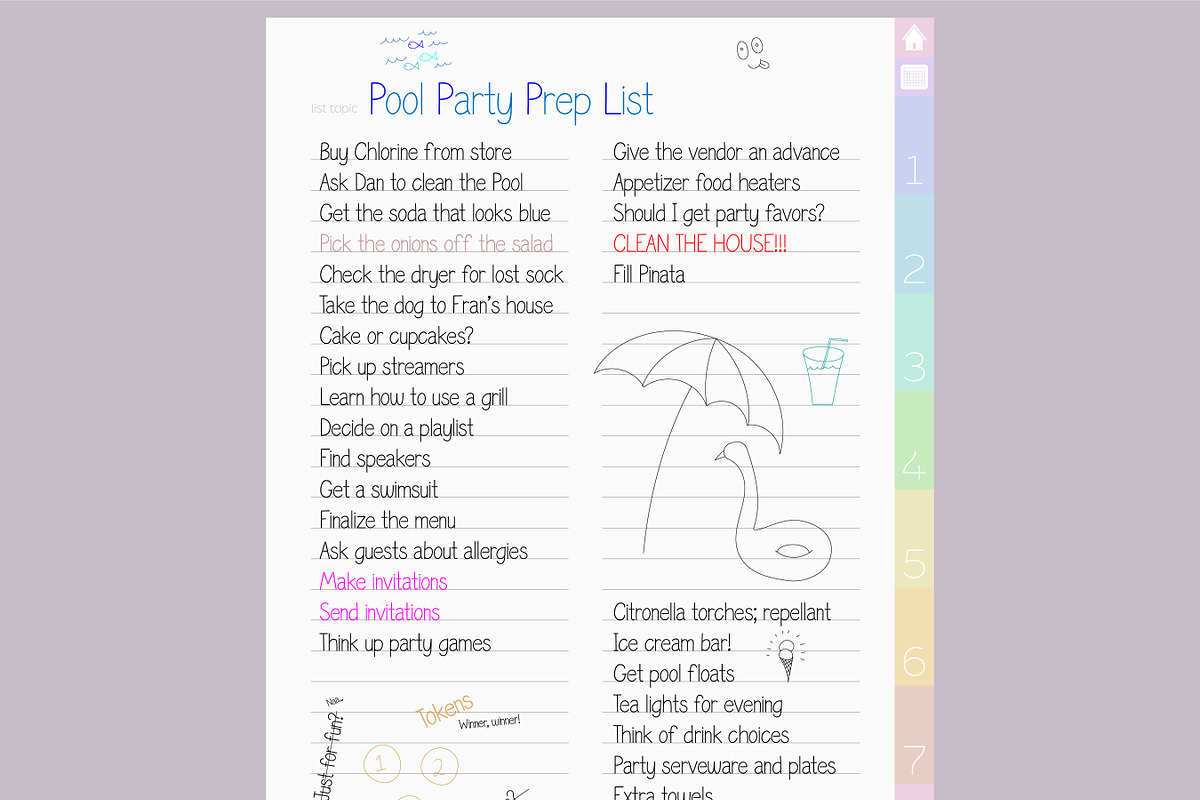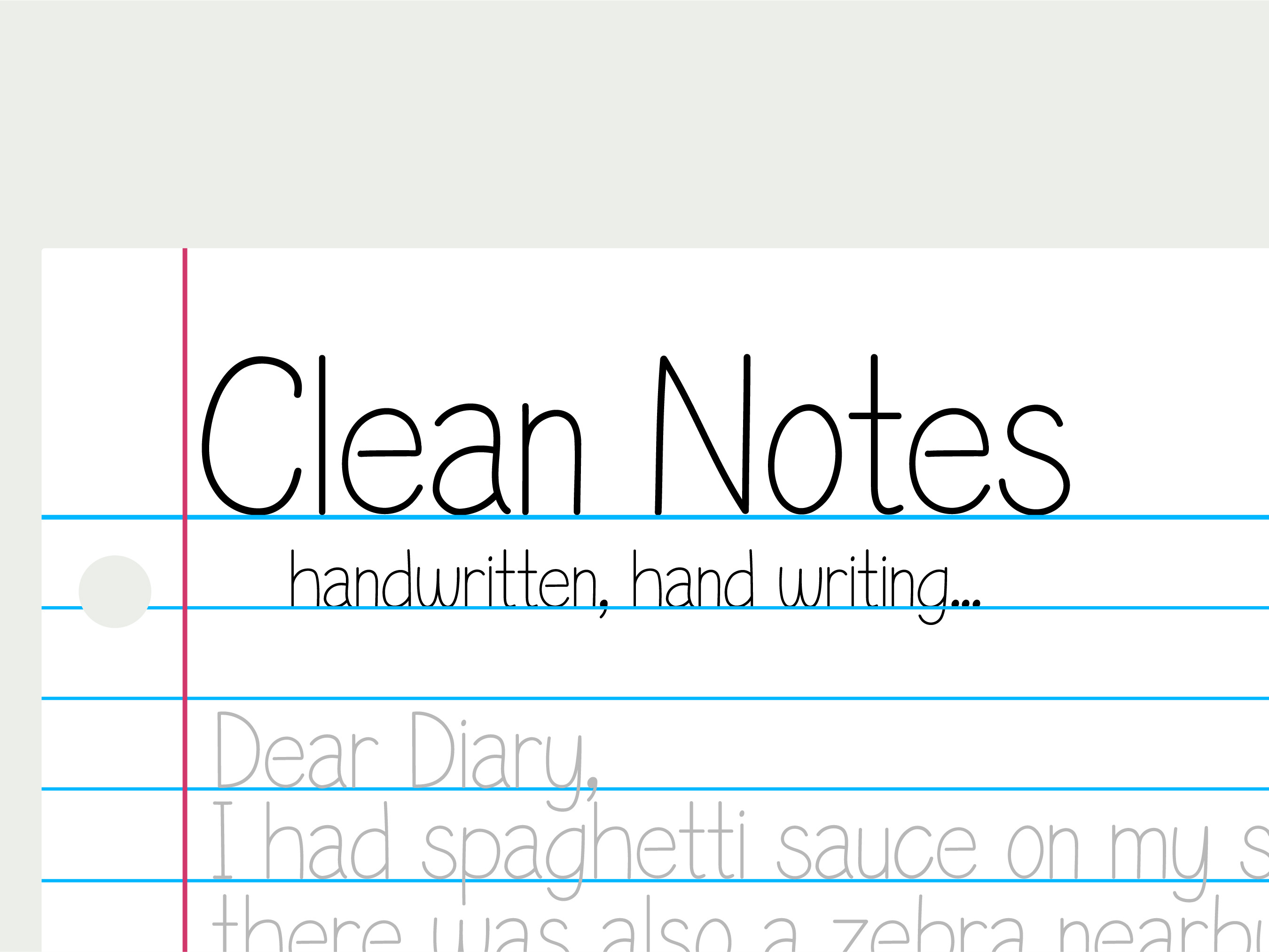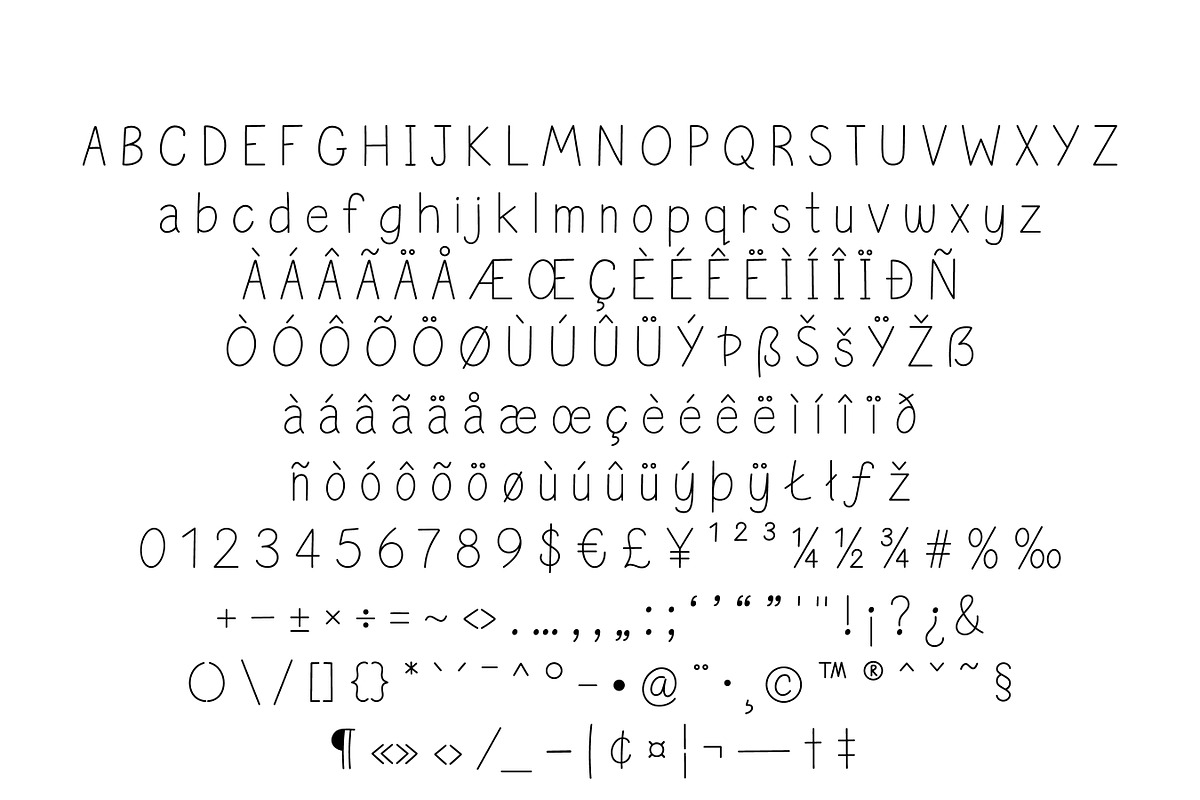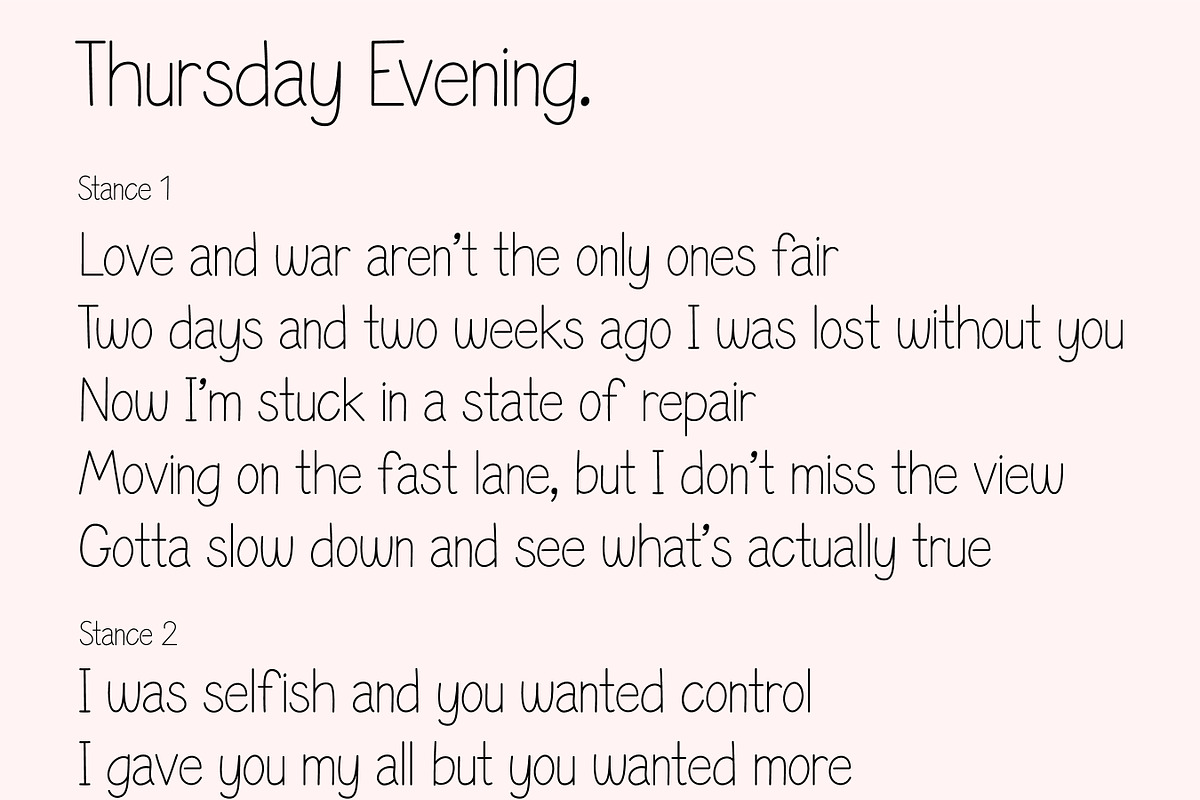
Clean Notes Font
Write beautifully and neatly with this Clean Notes font. It gives you the option to write beautiful and legible notes while maintaining a classic handwritten look. It is perfect for use in any note-taking app or computer.